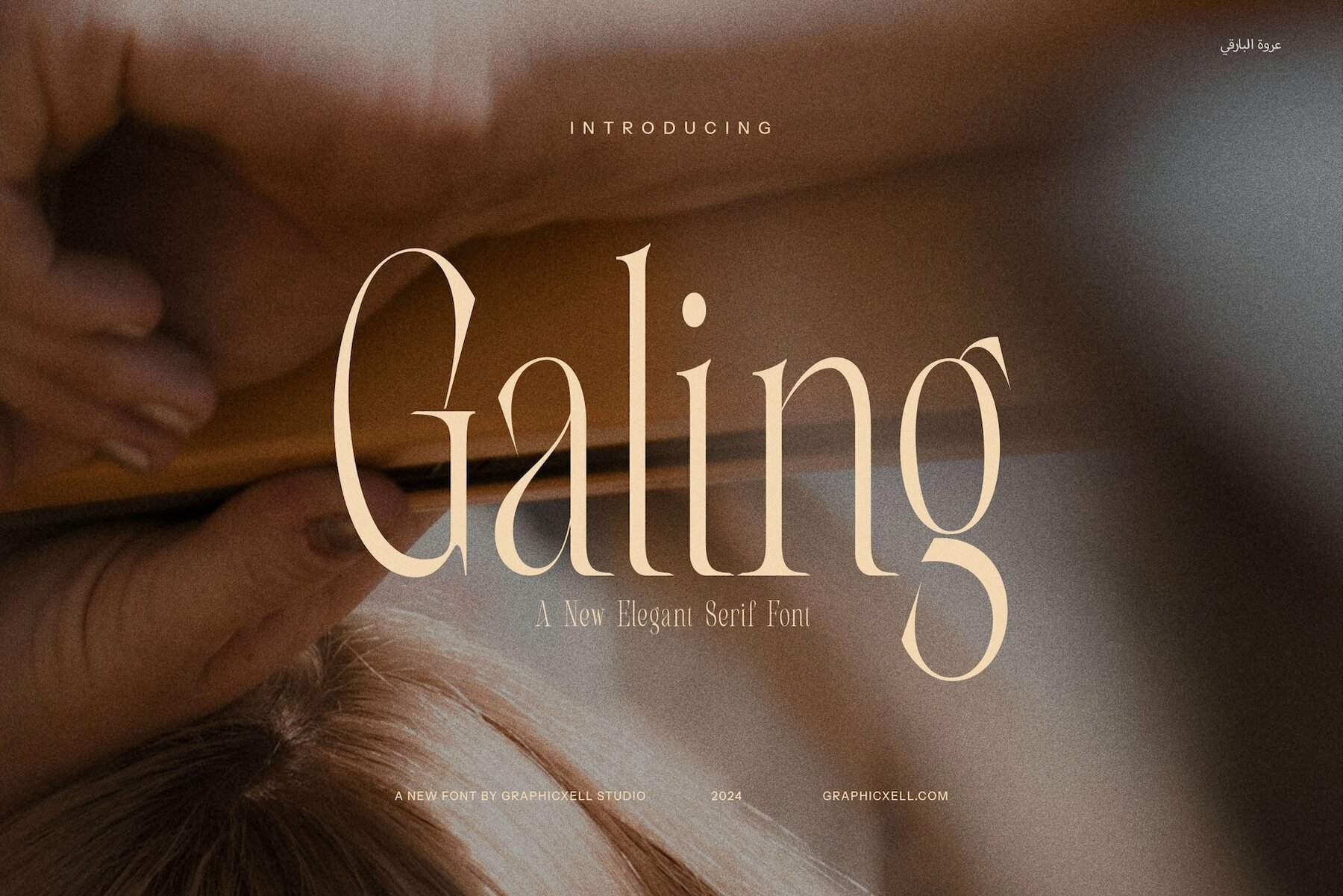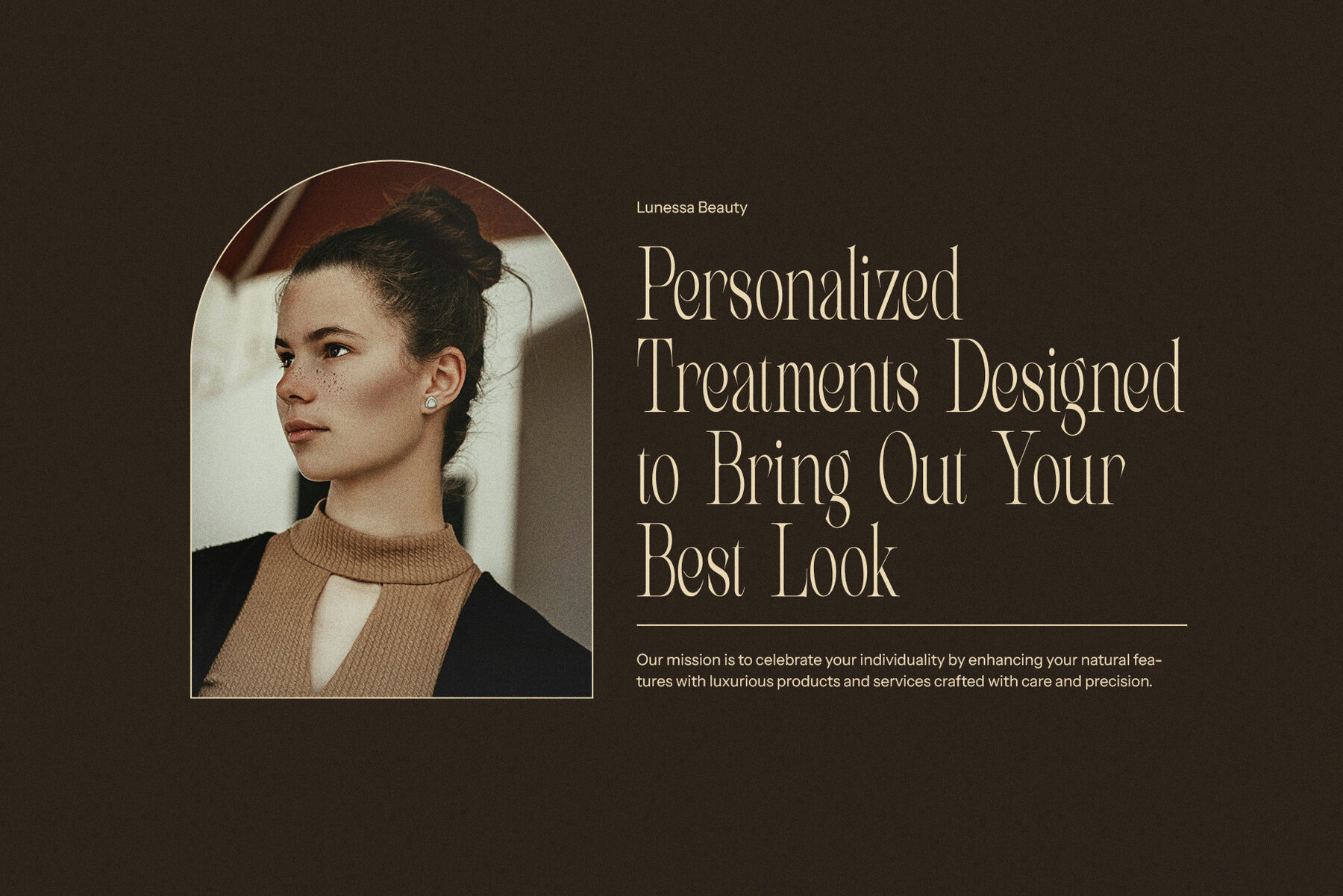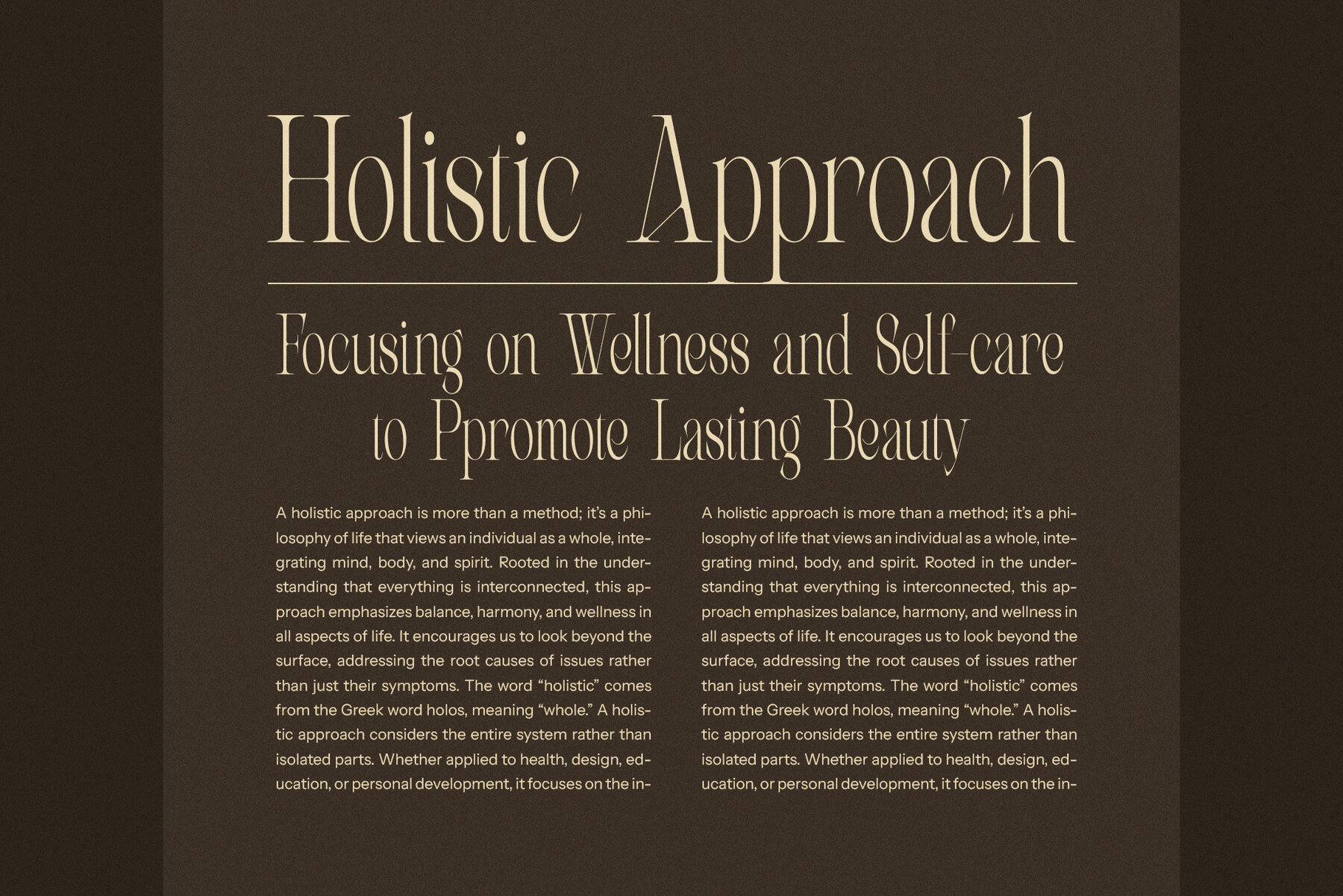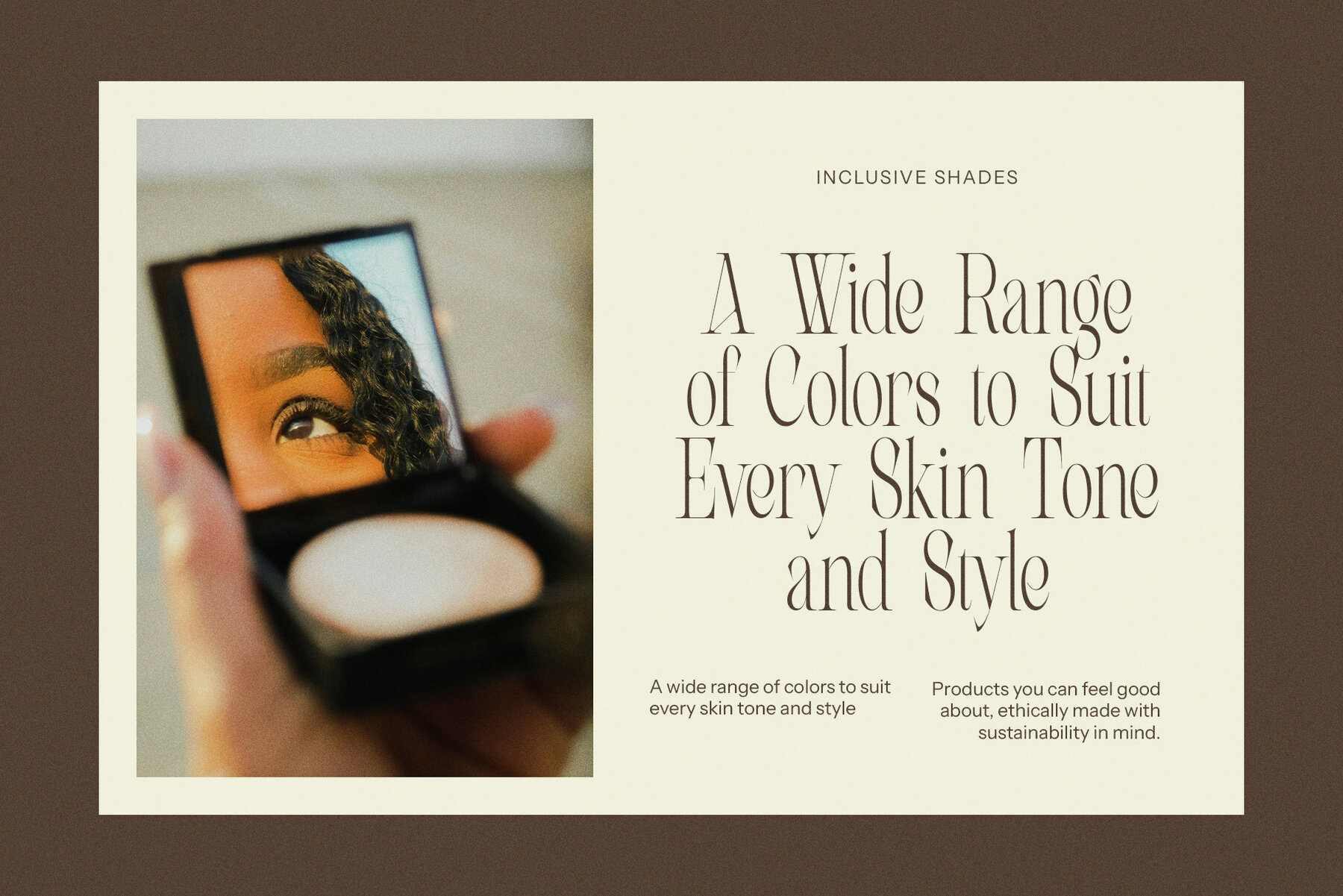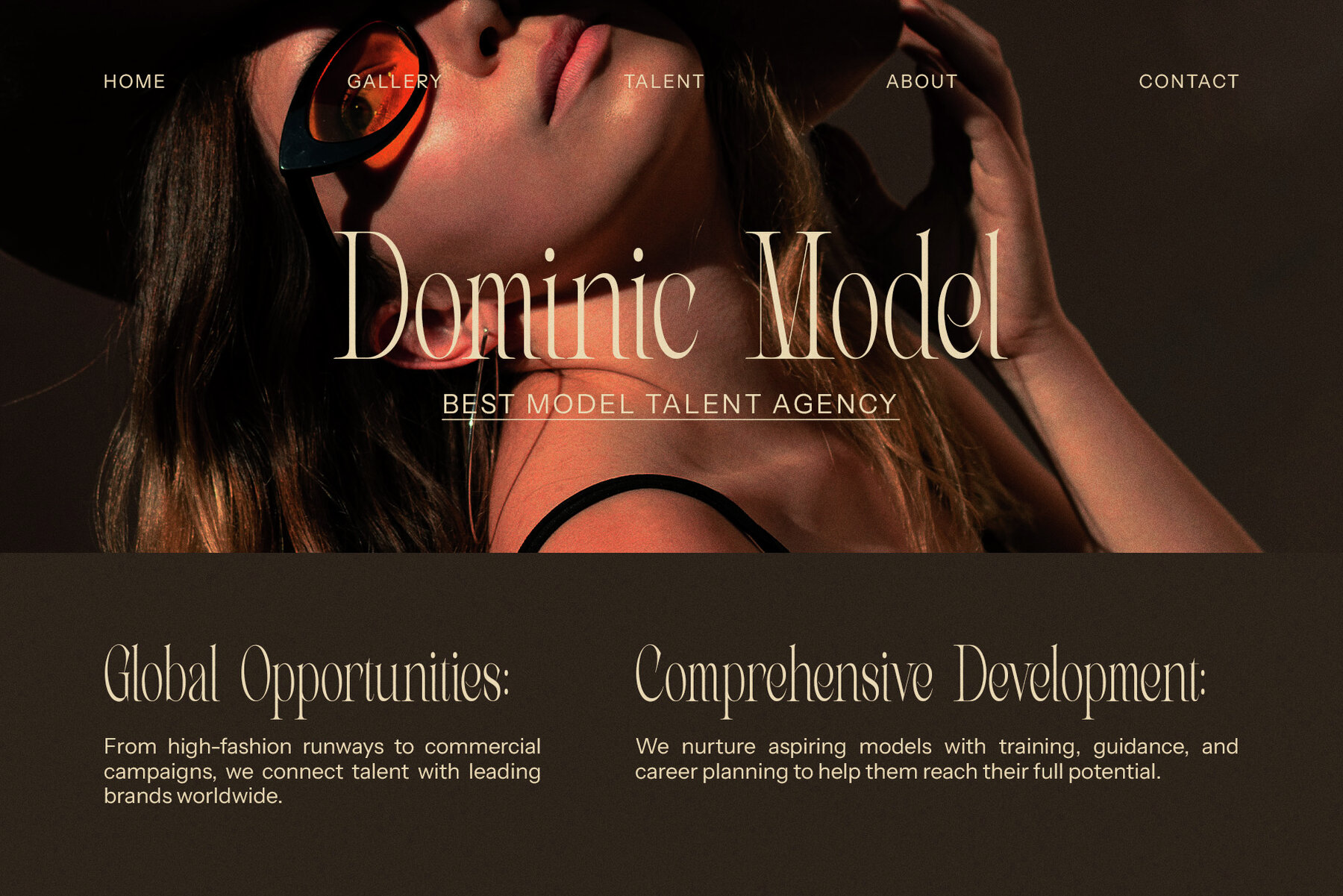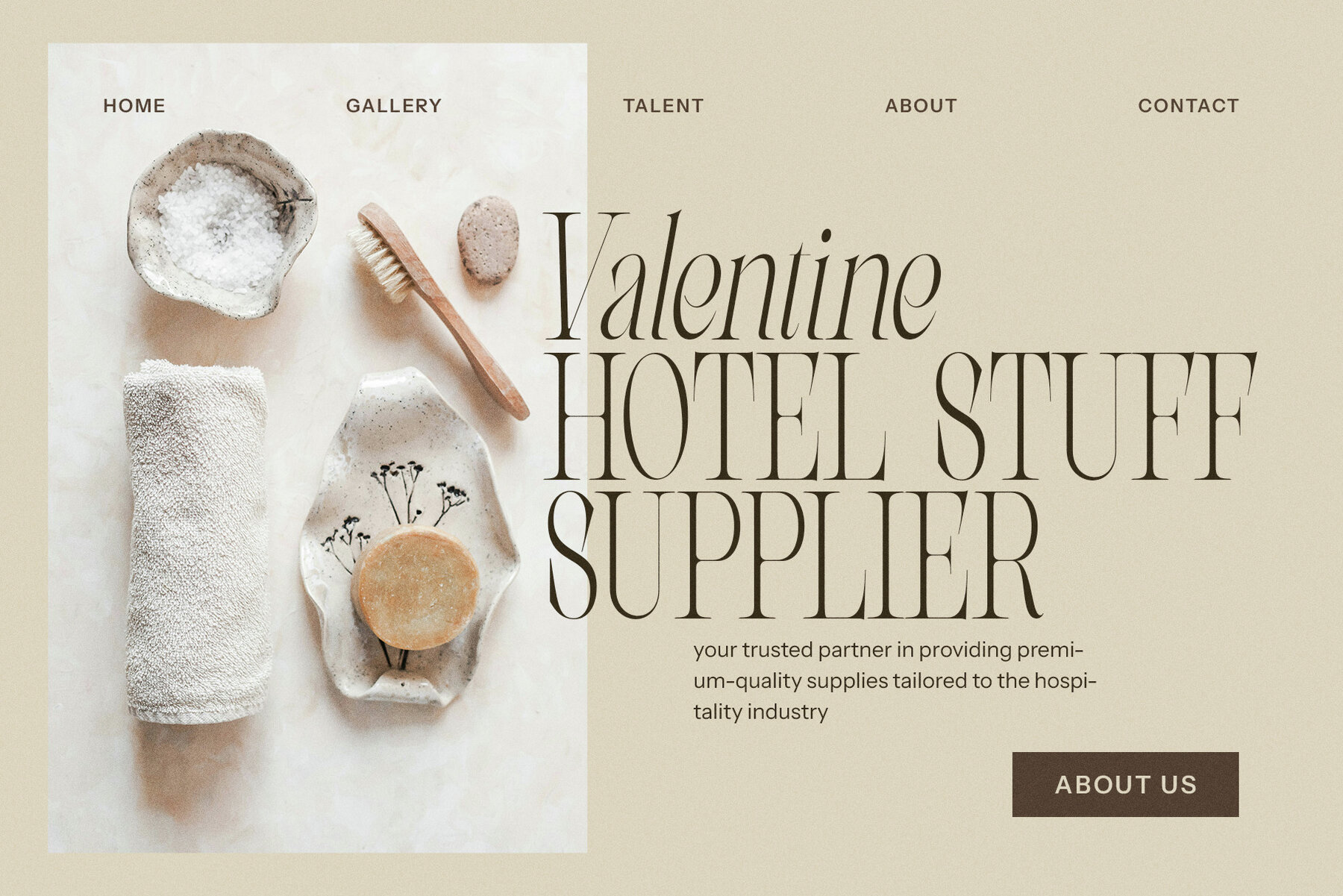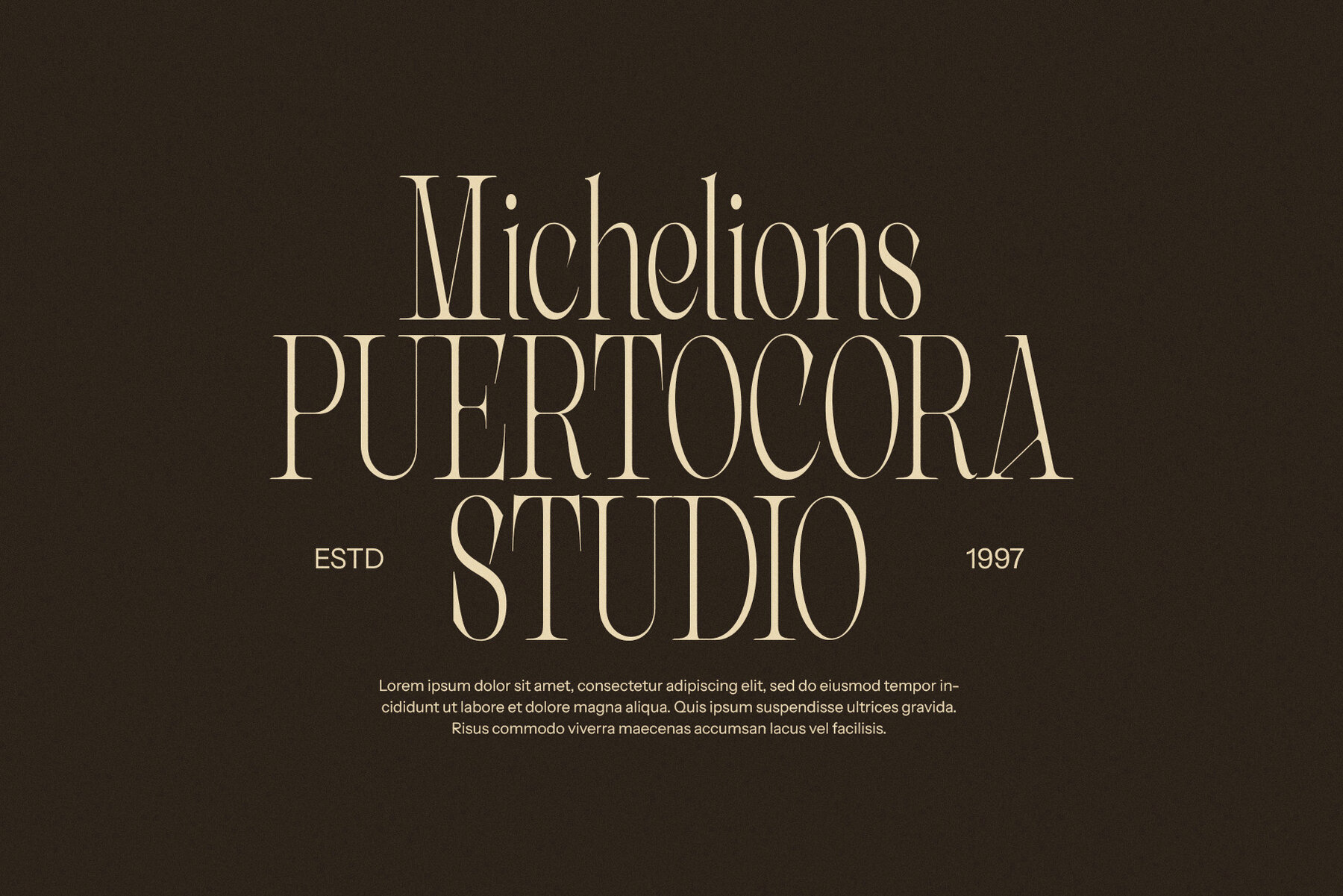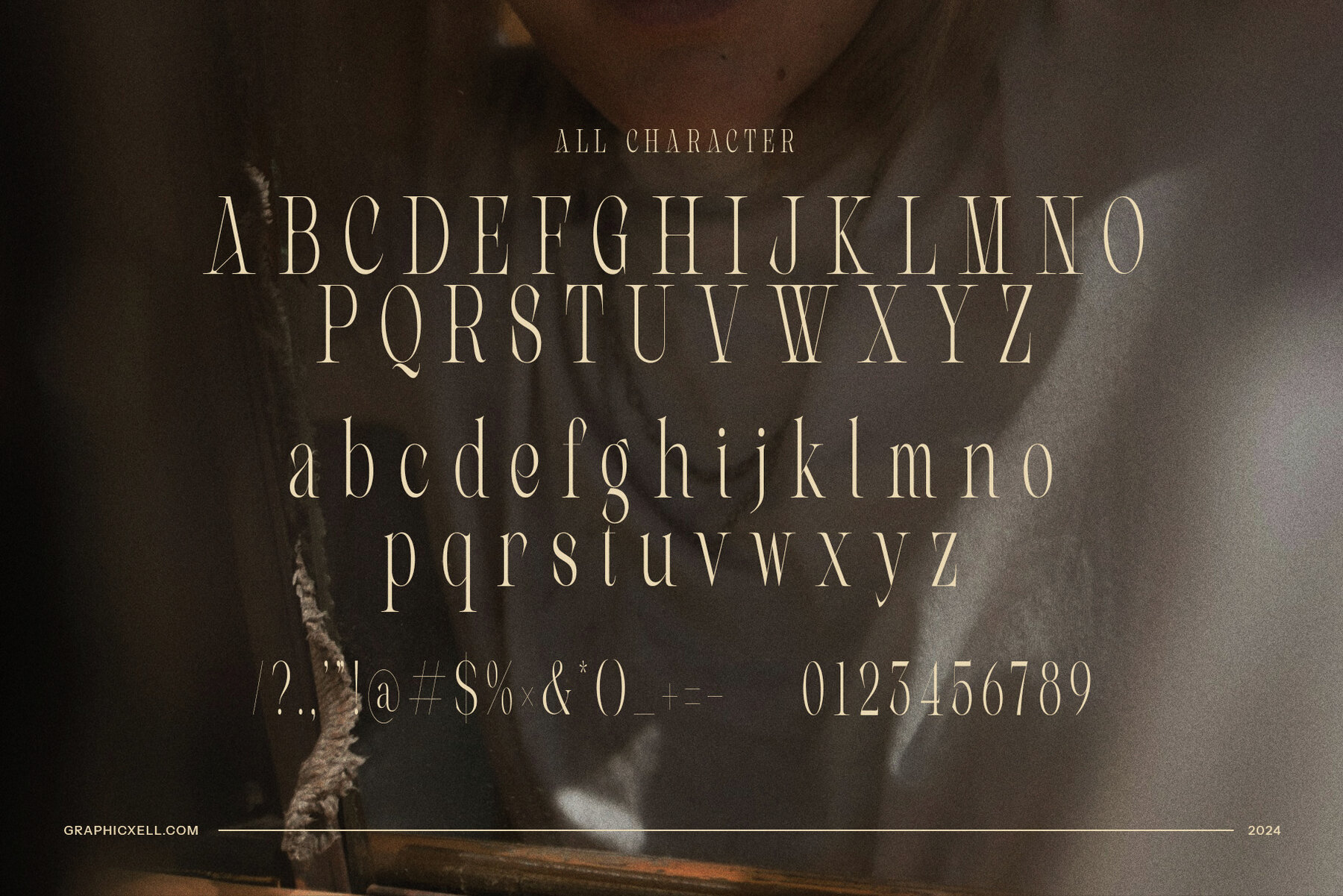
Galing Font
Galing
Galing Modern Serif Font is an exquisite typeface that seamlessly combines vintage charm with contemporary design elements. It features unique, elongated letterforms that bring a refined and graceful look to any project. The font perfectly balances vintage-inspired serifs with sleek modern lines, offering a timeless appeal. Its slender proportions add a sense of lightness and elegance, making it suitable for a broad spectrum of creative applications, from high-end logos and branding to stylish website designs and sophisticated packaging.
The aesthetic of Galing is particularly well-suited for industries like fashion, food, and lifestyle, where elegance and readability are essential. This font excels in delivering a modern yet classic look, making it ideal for eye-catching product labels, chic web layouts, and upscale branding projects. Galing's refined style is also perfect for magazines, advertisements, and boutique branding, where a luxurious and sophisticated feel is vital.
Galing Modern Serif Font offers versatility alongside beauty, making it an excellent choice for both print and digital media. Its harmonious blend of vintage and modern design ensures its timelessness, while its delicate letterforms provide a standout option for any design that demands elegance, refinement, and a touch of classic charm.